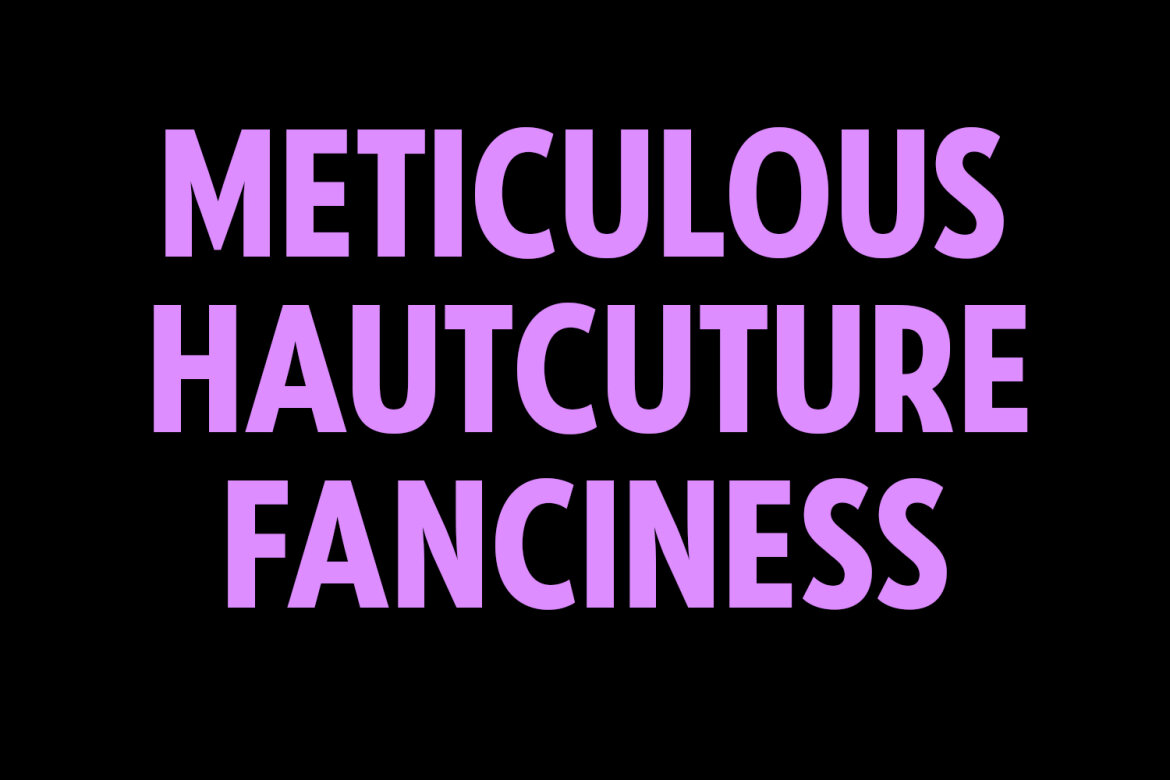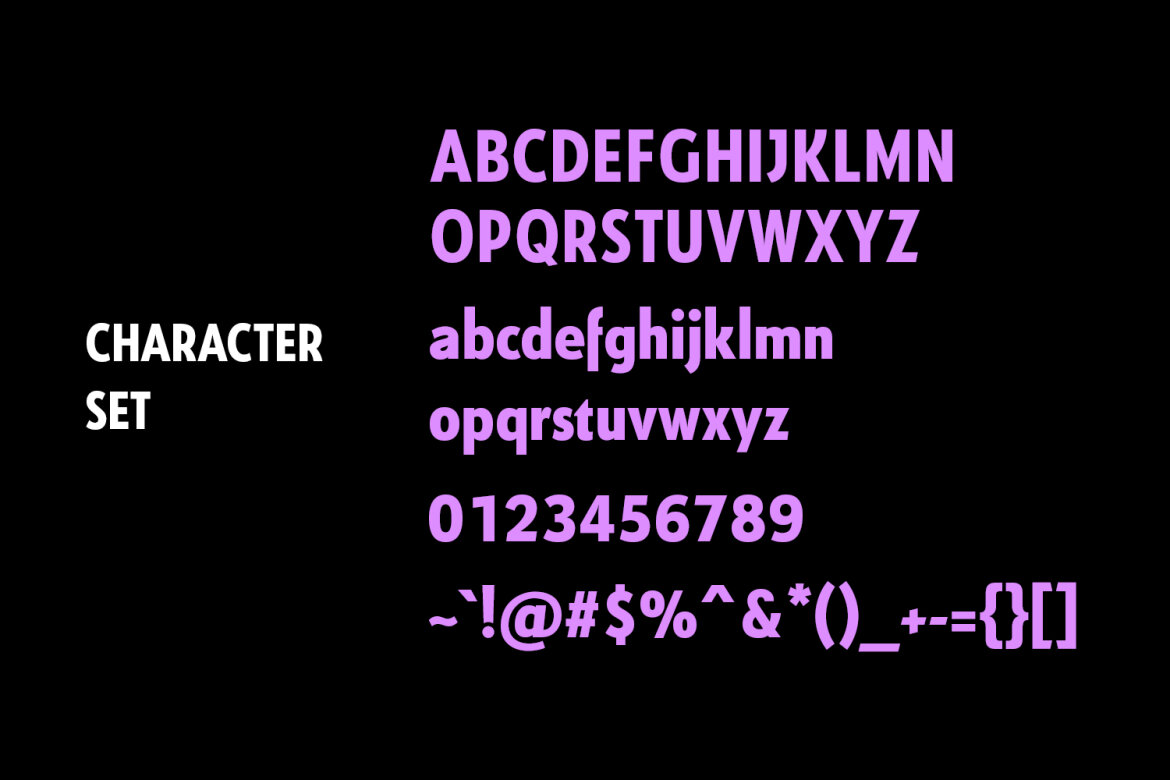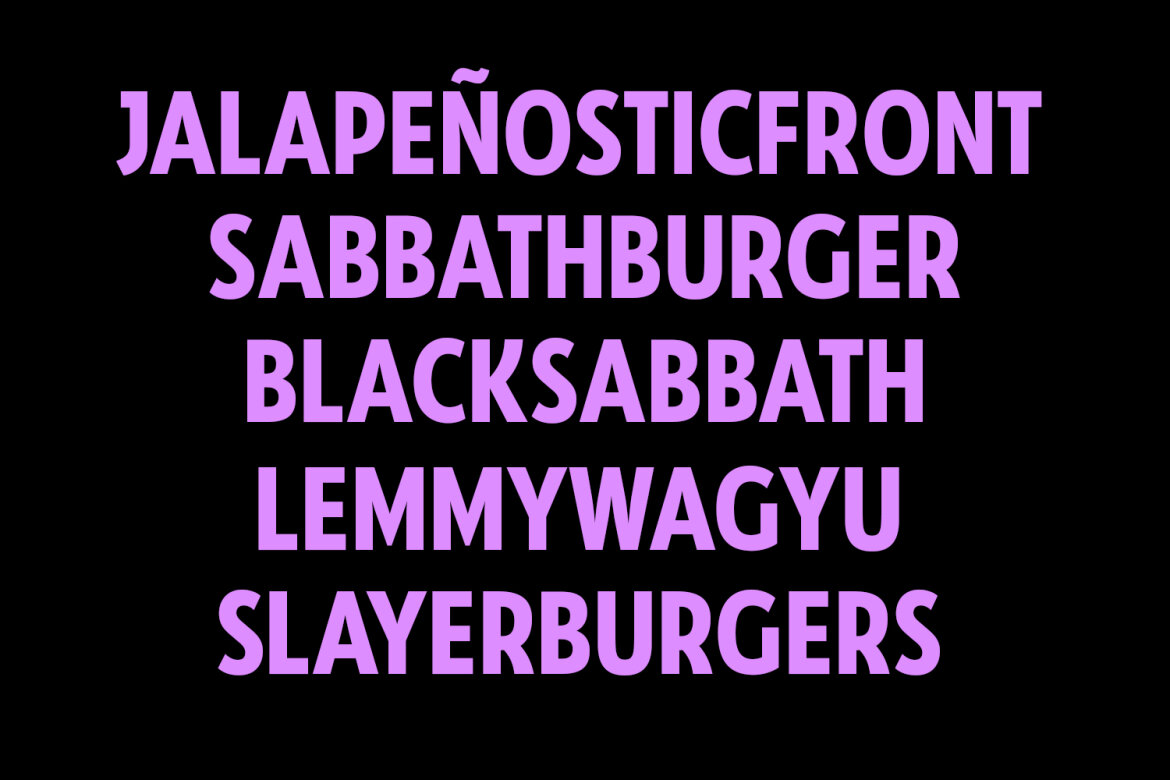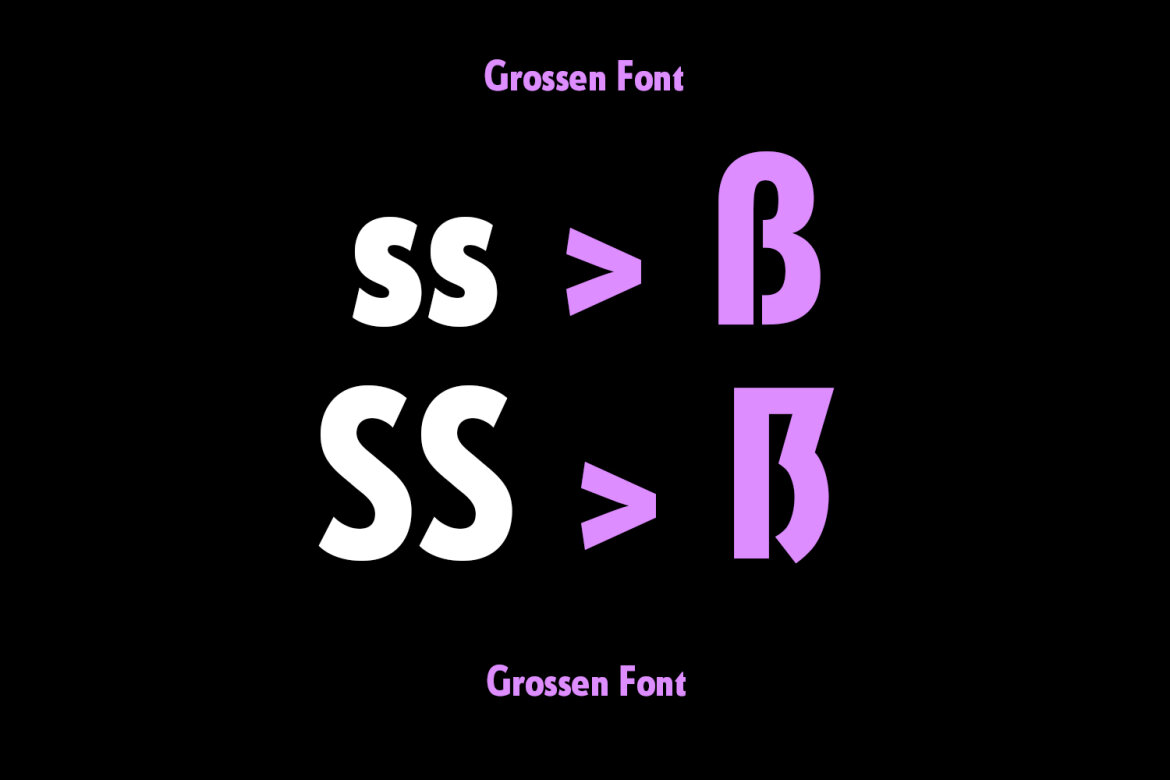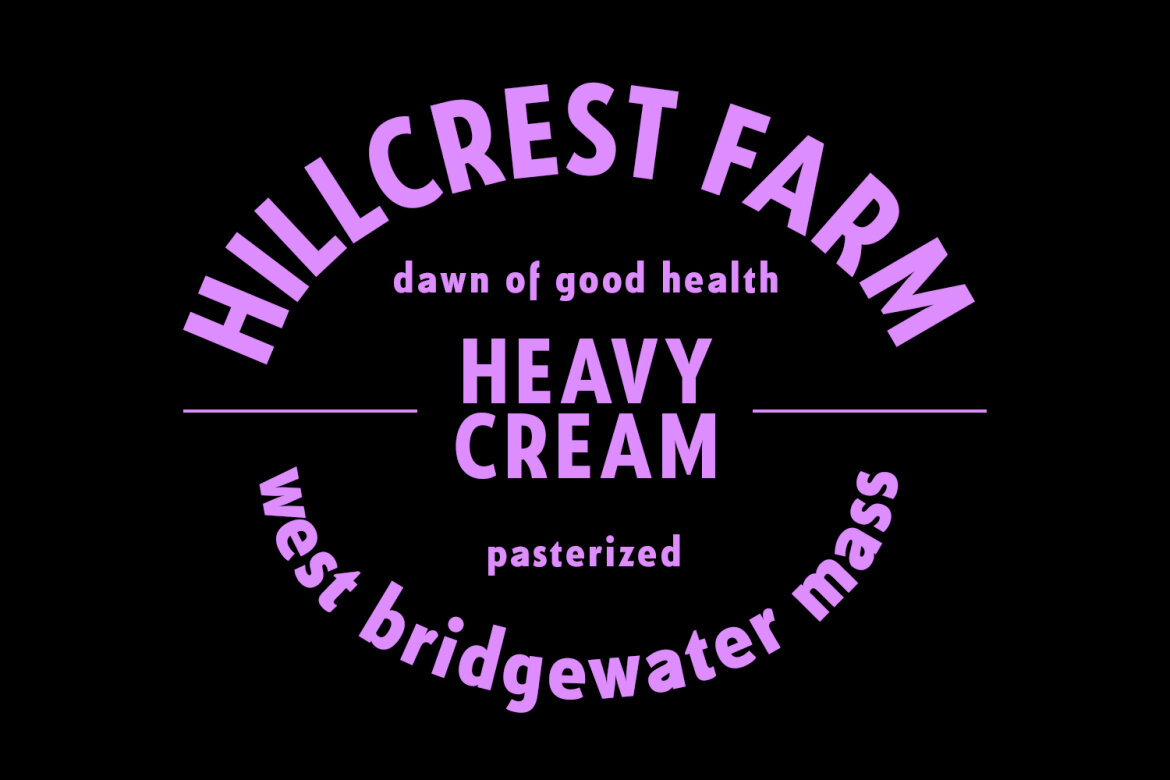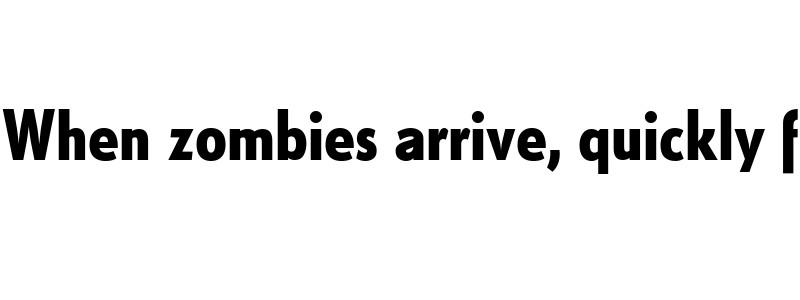
Grossen FREE Display Sans Font
Grossen/Großen is a Classic Contemporary Sans font. Regular stroke, fun character with a bit of ligatures and alternates. To give you an extra creative work. Grossen/Großen font support multilingual more than 100+ language. This font is good for logo design, Social media, Movie Titles, Books Titles, a short text even a long text letter and good for your secondary text font with script or serif. Make a stunning work with Grossen/Großen font.